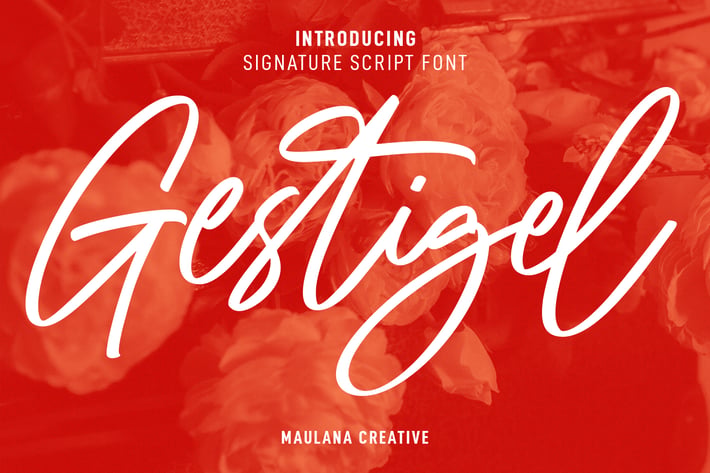
Gestigel Signature Script Font
Gestigel is a Signature Script font. With bold stroke, slanted and fun character with a bit of ligatures. To give you an extra creative work. Gestigel font support multilingual more than 100+ language. This font is good for logo design, Social media, Movie Titles, Books Titles, a short text even a long text letter and good for your secondary text font with sans or serif. Make a stunning work with Gestigel font.